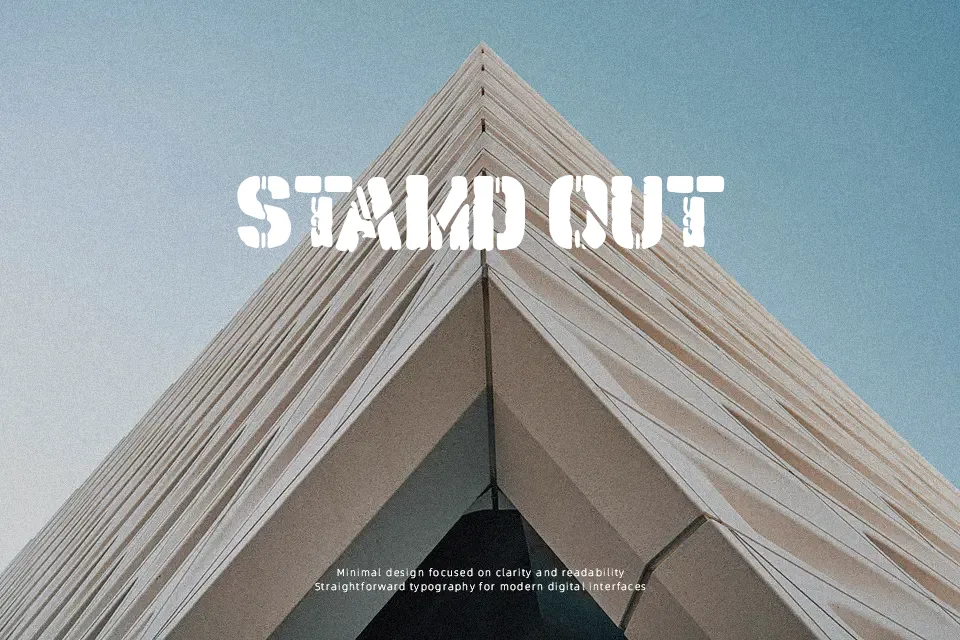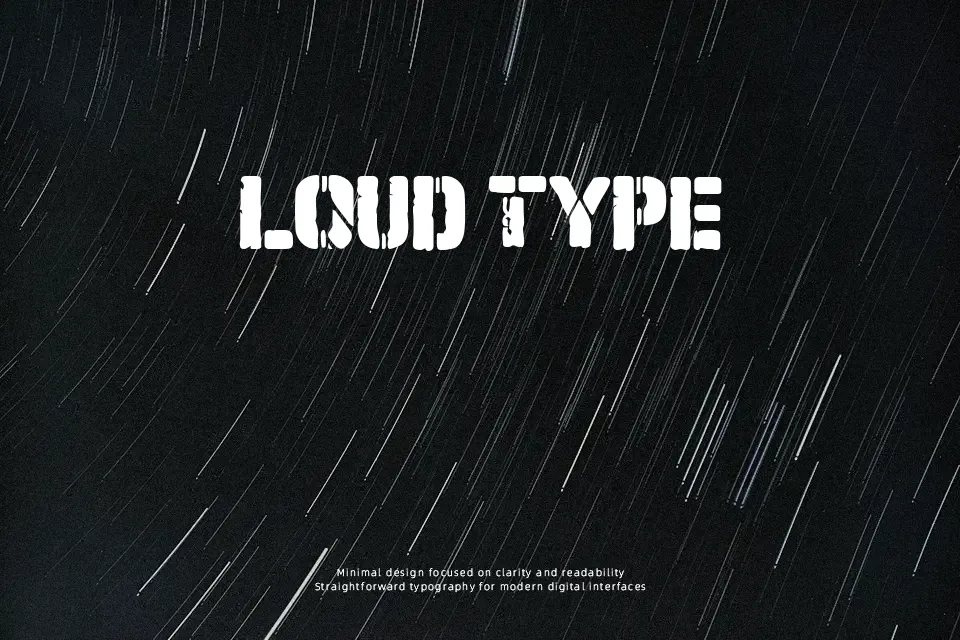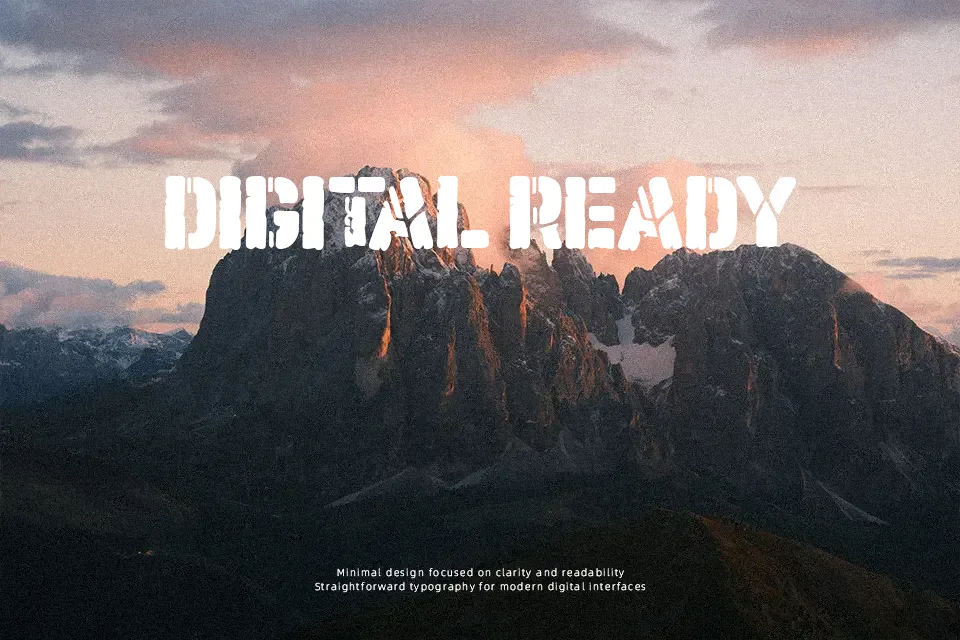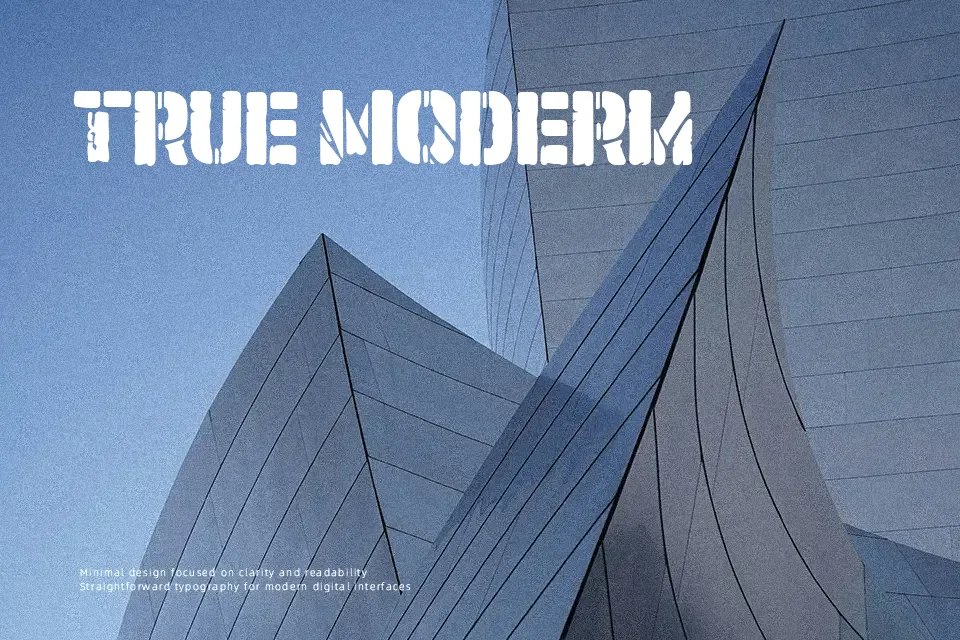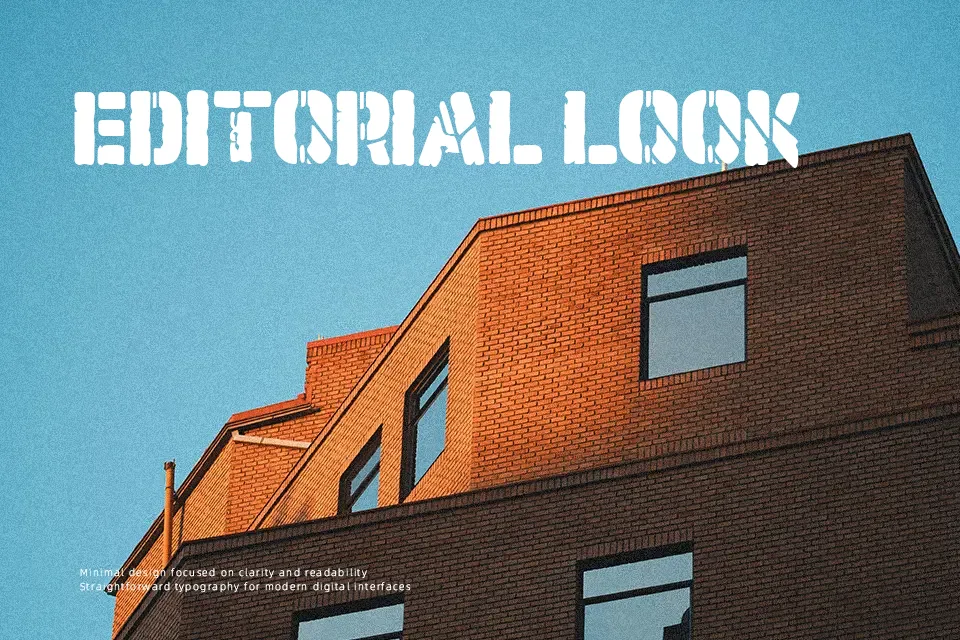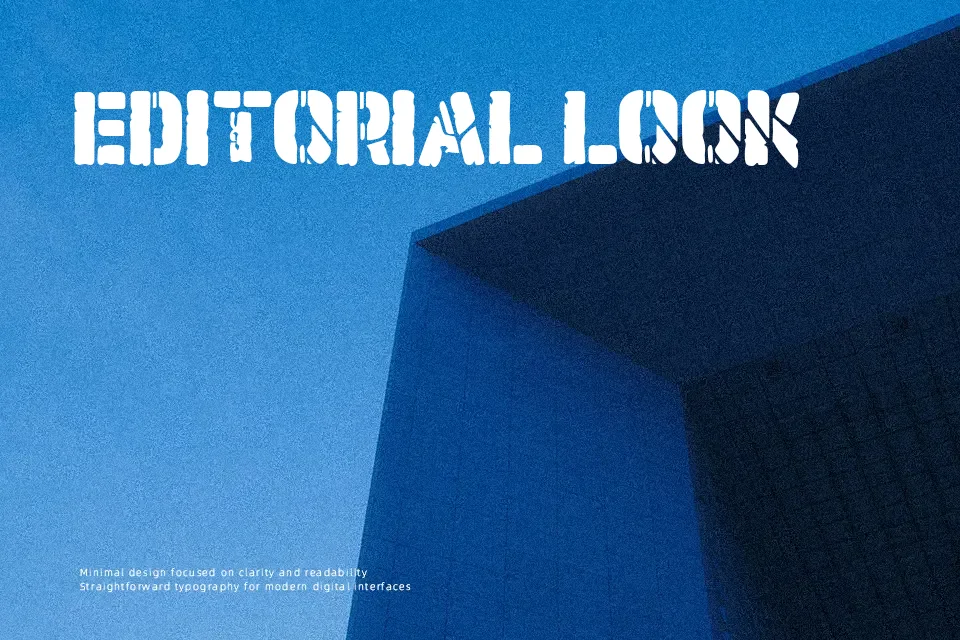
Army of Death Font
At first look, Army of Death hits hard — thick strokes, tight construction, and stencil-cut edges give it an immediately militaristic, combat-ready feel. Each letterform carries visible weight without sacrificing legibility at display sizes. The spacing is tight and intentional, reinforcing a sense of compressed power. It performs well on dark backgrounds where contrast amplifies the brutalist structure, making it a solid pick for gaming event branding, horror-themed promotions, or streetwear drop campaigns. That said, the font lacks italics and extended character sets, limiting creative flexibility for multilingual or expressive typographic compositions. At small sizes, the stencil details deteriorate quickly, so this is firmly a headline-only tool — not something to deploy in body copy or UI labels.
Best For:- Gaming title cards and esports event headers
– Horror or action movie poster type
– Military-themed apparel and merchandise labels
– Band merch and hard music visual identity
Not Ideal For:- Small-size text or body copy
– Corporate or editorial layouts
– Multilingual designs requiring extended Latin characters
– Feminine, luxury, or lifestyle branding
Perfect for advertising, film, and gaming, with a bold and display style.